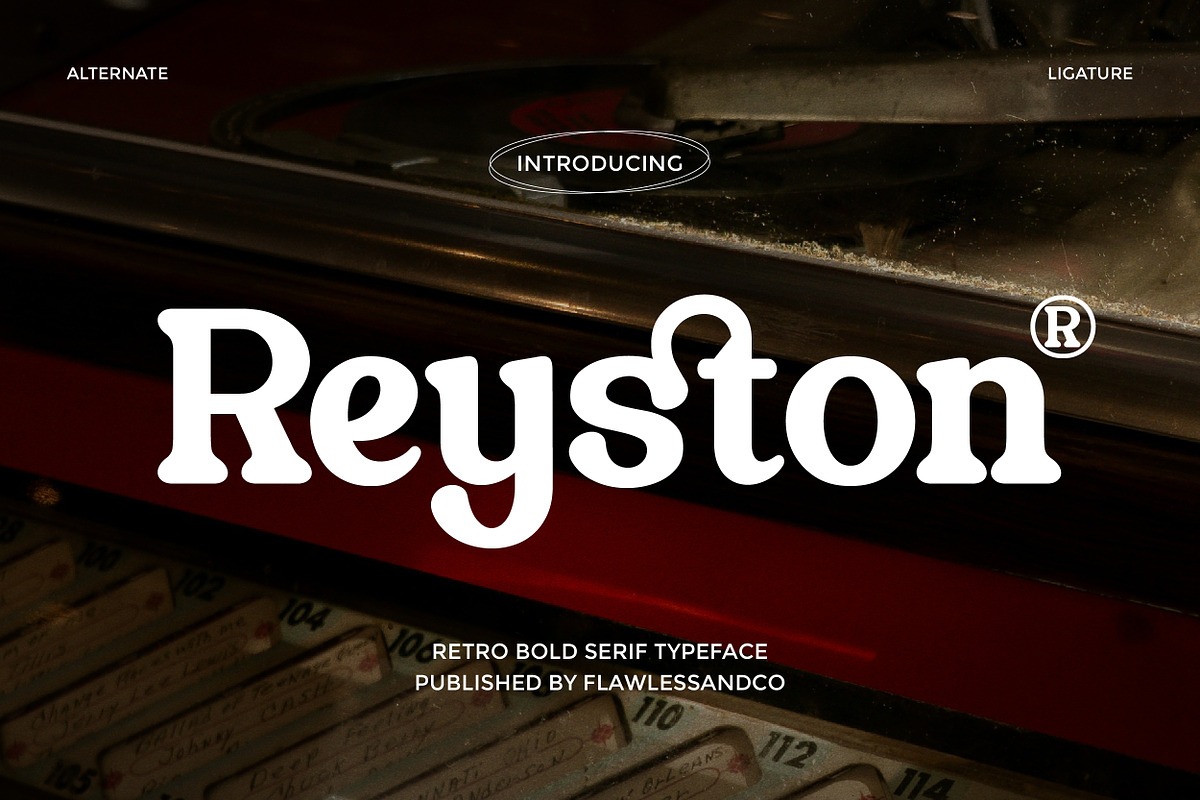
Reyston – Bold Serif Font
Reyston – Bold Serif Font is a versatile font designed to adapt beautifully across different design styles, offering dependable readability and balance. Reyston is a retro bold serif font designed to capture the timeless charm of vintage typography with a bold and confident presence. Featuring strong serif shapes, bold strokes, and stylish curves, Reyston brings a nostalgic yet refined look that stands out beautifully in modern design projects. This font combines retro character with elegant visual balance, making it perfect for designers who want to create designs that feel both classic and sophisticated. Its bold structure ensures excellent visibility, making it ideal for impactful headlines and distinctive branding.